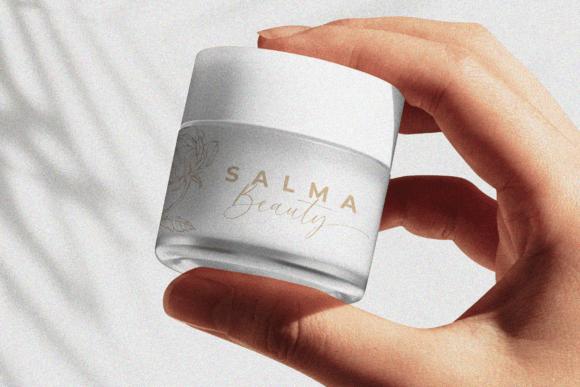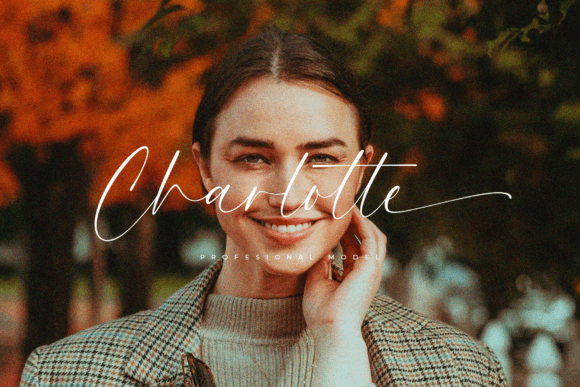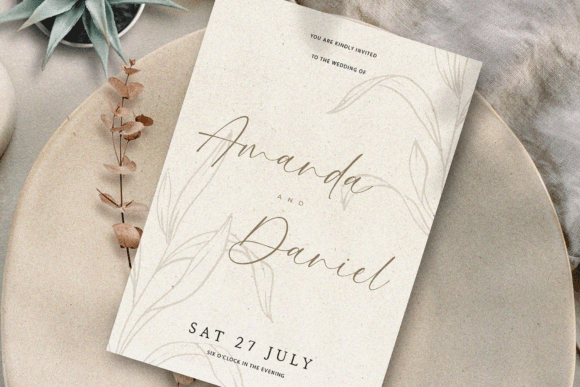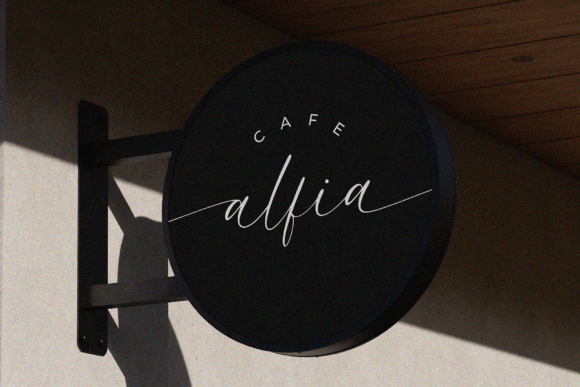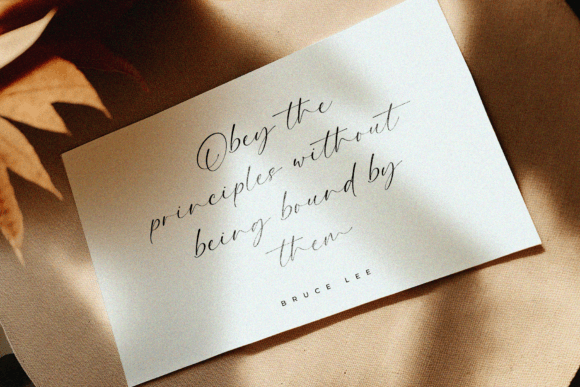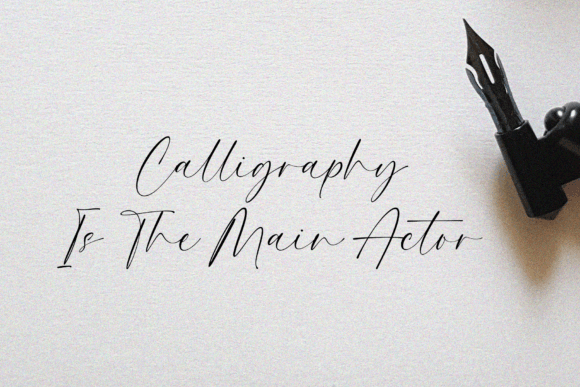
Introducing Adoraline Font: The Perfect Script Calligraphy Font for Your Creative Projects
Are you a designer or crafter looking for a beautiful and elegant font to elevate your creative projects? Look no further than Adoraline Font, a stunning script calligraphy font that is sure to impress. With its 62 stunning ligatures and beginning and ending swashes, Adoraline Font is the perfect choice for a wide range of projects, from wedding invitations to branding and logo design.
What Makes Adoraline Font So Special?
Adoraline Font is a script calligraphy font that is designed to add a touch of elegance and sophistication to any project. With its beautiful, flowing lines and intricate details, this font is sure to capture the attention of your audience. Here are just a few of the features that make Adoraline Font so special:
- 62 Stunning Ligatures: Adoraline Font comes with 62 stunning ligatures that allow you to create beautiful, unique text that stands out from the crowd.
- Beginning and Ending Swashes: Add a touch of elegance to your text with the font’s beginning and ending swashes, perfect for creating stunning titles and headings.
- PUA Encoded: Adoraline Font is PUA encoded, which means you can access all of the amazing glyphs and ligatures with ease, making it simple to use and incorporate into your projects.
Adoraline Font is a versatile font that can be used for a wide range of projects, including:
- Wedding Invitations: Create beautiful, elegant wedding invitations that set the tone for a special day.
- Branding and Logo Design: Use Adoraline Font to create a unique and memorable brand identity that stands out from the competition.
- Book Covers: Add a touch of sophistication to your book covers with Adoraline Font, perfect for fiction, non-fiction, and romance novels.
- Posters: Create eye-catching posters that grab attention with Adoraline Font’s stunning ligatures and swashes.
- Instagram Posts: Elevate your Instagram posts with Adoraline Font, perfect for quotes, promotions, and more.
Why Choose Adoraline Font?
With so many fonts available, why choose Adoraline Font? Here are just a few reasons why designers and crafters love this font:
- Elegant and Sophisticated: Adoraline Font adds a touch of elegance and sophistication to any project, making it perfect for high-end designs.
- Unique and Memorable: With its stunning ligatures and swashes, Adoraline Font helps you create unique and memorable text that stands out from the crowd.
- Easy to Use: Adoraline Font is PUA encoded, making it simple to access and use all of the amazing glyphs and ligatures.
If you’re looking for a beautiful and elegant font to elevate your creative projects, look no further than Adoraline Font. With its stunning ligatures, beginning and ending swashes, and PUA encoding, this font is perfect for a wide range of projects, from wedding invitations to branding and logo design. Try Adoraline Font today and see the difference it can make in your designs!
Whether you’re a designer, crafter, or DIY enthusiast, Adoraline Font is a must-have font that is sure to inspire your creativity and take your projects to the next level.